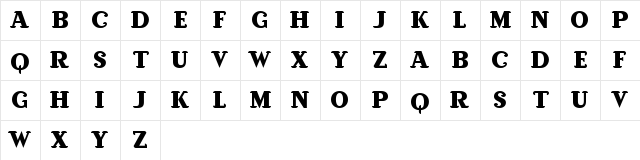
Quarter Round Serif Regular
Design Context for Quarter Round Serif Typeface
Quarter Round Serif brings classic typographic sensibility to the table — its serifs and measured letterforms reflect centuries of print heritage.
Pro Tip: Set Quarter Round Serif with slightly loose tracking in headlines to let each letterform's detail read clearly at display sizes.